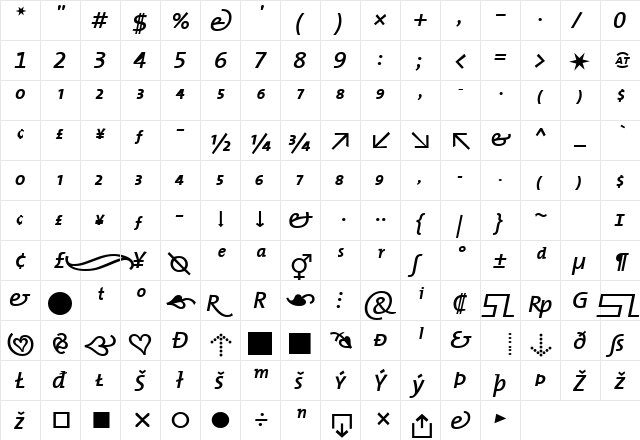
TheMixSemBolExpIta Regular Font Preview
TheMixSemBolExpIta Regular
Design Context for TheMixSemBolExpIta Typeface
TheMixSemBolExpIta takes a measured approach to typography — its balanced proportions and neutral character make it a reliable workhorse for both digital and print work.